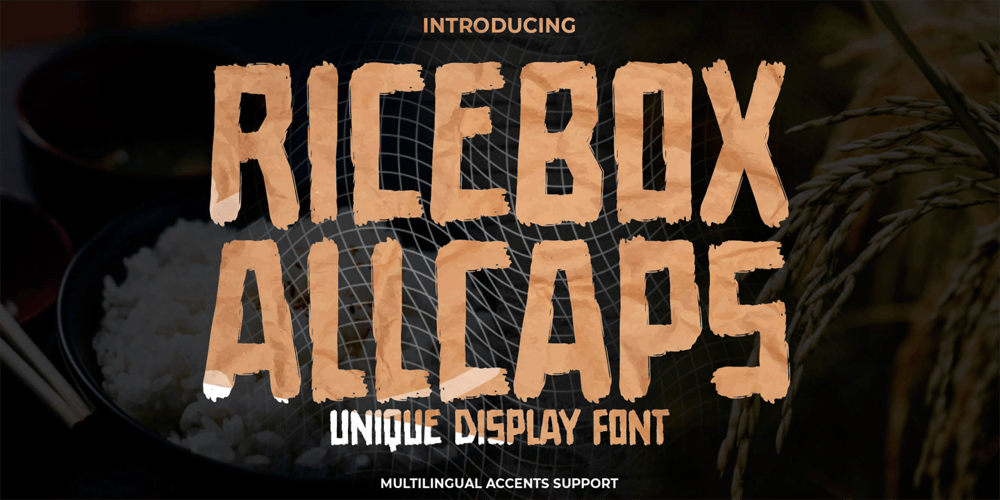
Ricebox Allcaps Font Family was designed by Abdul Malik Wisnu, Anang Fibriyanto and published by Gassstype. Ricebox Allcaps contains 1 styles and family package options. Here comes a New font, Ricebox Allcaps is Unique Display Font this is strong Font and cool, that is written casually and quickly amazing. Then crafted carefully drawn into vector format. This font is great for your next creative project such as logos, printed quotes, invitations, cards, product packaging, headers, Logotype, Letterhead, Poster, Label, and etc.It is perfect for any design project as Invitation,logo, book cover, craft or any design purposes.this font is great for your creative projects such as watermark on photography, and perfect for logos & branding, special events or anything that need handwritting taste.That is Font Ricebox Allcaps has Stylish,Cool and Unique characteristic more natural look to your text with a more modern look to your text.